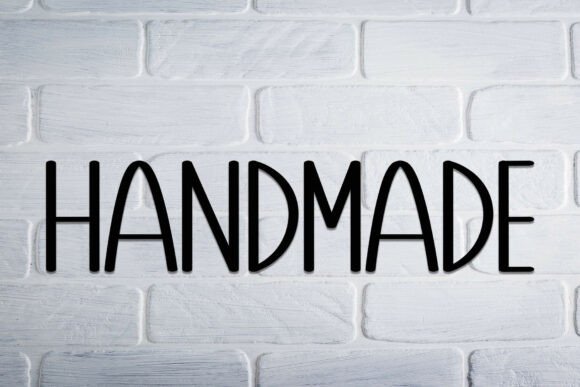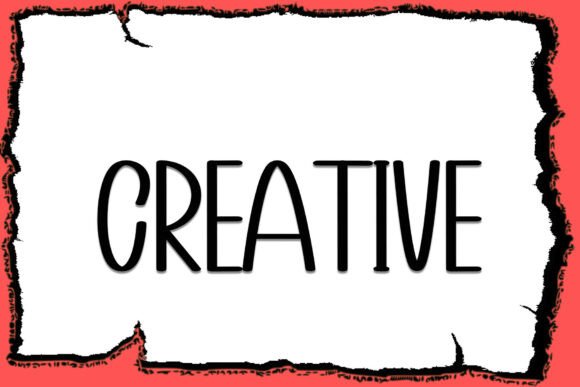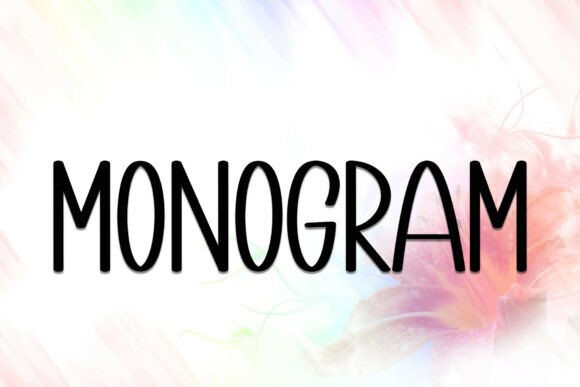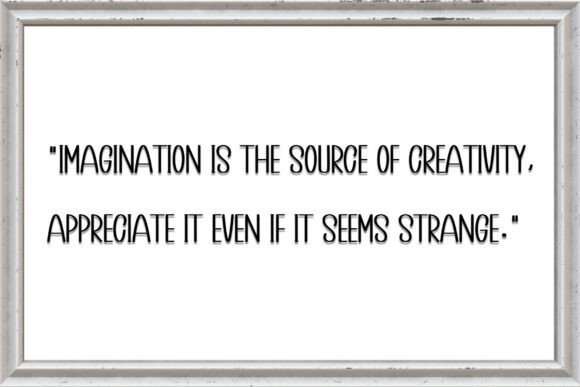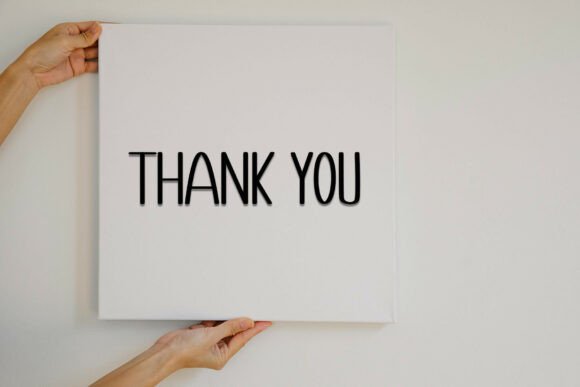
Introduction to Mushrooms Font
Do you remember that moment when you stumbled upon the perfect font for your creative project? The one that made your design come alive, and you knew exactly why you chose it? For designers, finding the right font can be a game-changer. And, if you’re looking for a high-quality font that exudes a friendly and approachable vibe, you’re in luck.
Enter the Mushrooms Font, a stylish and modern display font that’s perfect for branding, headlines, packaging, and digital content. With its clean lines, balanced letterforms, and subtle rounded edges, this font is a design resource that’s hard to resist. Whether you’re working on a free download project or a commercial design, the Mushrooms Font is sure to add a warm and inviting touch to your work.
With its crisp structure and versatile style, the Mushrooms Font delivers clarity and charm in equal measure. Plus, its transparent background makes it easy to overlay on images, creating a seamless design experience. In this article, we’ll dive deeper into the world of Mushrooms Font and explore why it’s a valuable addition to any designer’s toolkit.
Key Features of Mushrooms Font
- High-quality, unique design ideal for creative projects and artistic expressions.
- High-resolution design, suitable for use in print and digital applications, including web design and graphic design.
- Unique characteristics and intricate details make it an ideal choice for designers seeking a distinctive and creative font.
Honest Review: Mushrooms Font
I recently had the chance to work with Mushrooms Font, and I must say it’s been a delightful experience. As a designer, I’m always on the lookout for high-quality fonts that can elevate my creative projects. Mushrooms Font delivers on that promise.
- ✨ Beautiful, whimsical design that adds a touch of magic to any project
- ✨ Clear, legible characters that make it easy to read and use in various contexts
- ✨ Comes with a transparent background, making it easy to customize and use in different designs
- ✨ Great for creative projects, from illustrations to graphic design and beyond
My only minor quibble is that the font might not be suitable for formal or professional projects, as it has a somewhat playful and quirky vibe.
Overall, I’m really impressed with Mushrooms Font. It’s a high-quality, versatile font that can add a lot of value to your creative projects. If you’re looking for a unique and engaging design element, I’d definitely recommend giving it a try.
The Mushrooms Font is perfect for various design projects, including:
- Food and beverage branding
- Outdoor and nature-themed designs
- Children’s book illustrations
- Advertising and marketing materials
Tips for Getting the Most Out of the Mushrooms Font
To get the most out of the Mushrooms Font, experiment with different font sizes, colors, and combinations. You can also pair it with other design elements, such as images and icons, to create a unique and visually appealing design.